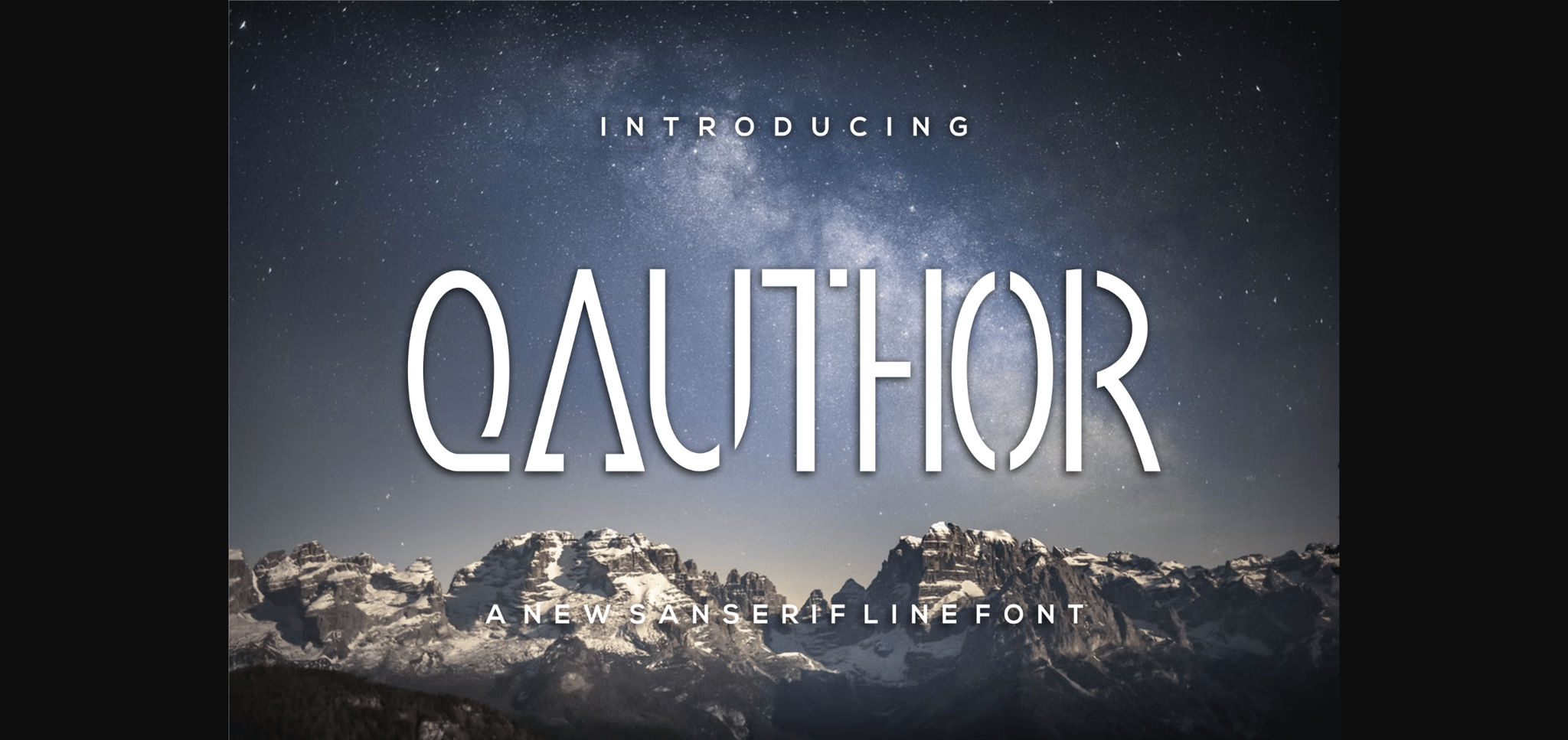
About Qauthor Font
Qauthor is a cool and incredibly interesting sans serif font. This typeface will enhance your craft with little effort, making your product stand out from the competition.